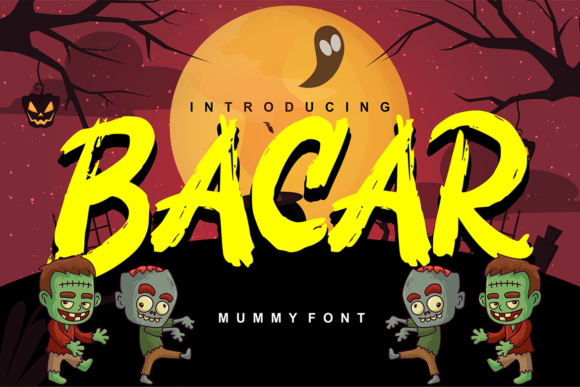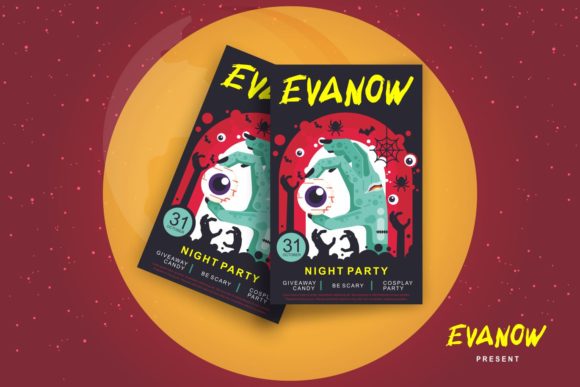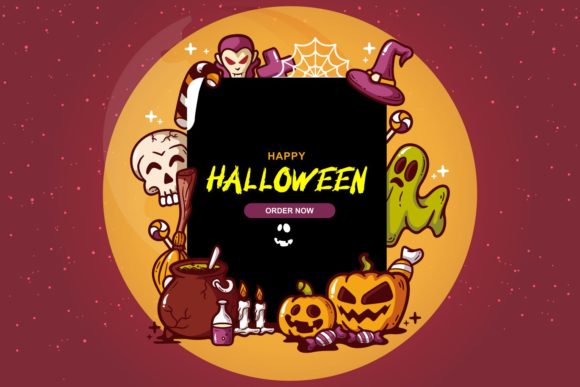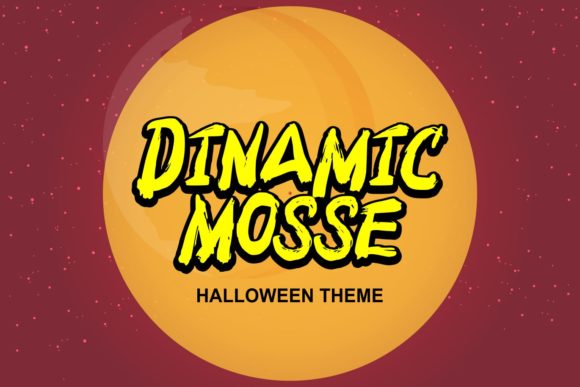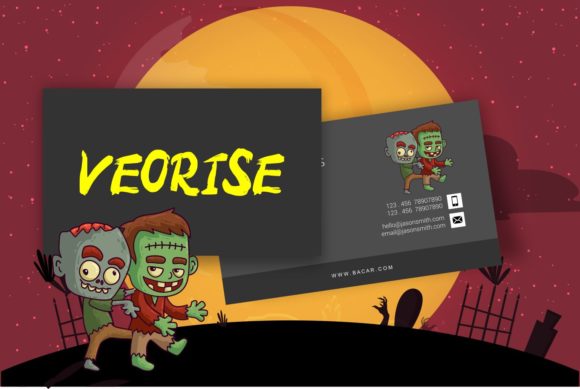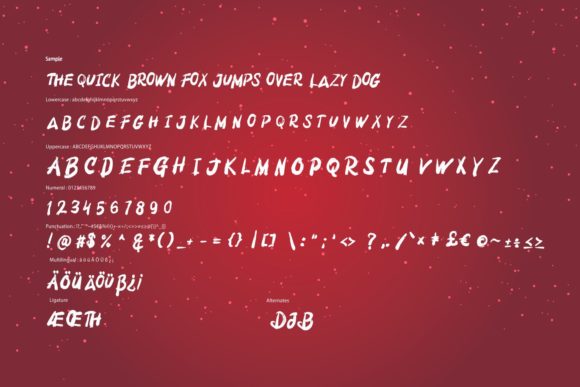
HomeScript FontsBacar Font Script Fonts Bacar Font FacebookXPinterestWhatsApp Bacar Font Poster 2 Bacar Font Poster 3 Bacar Font Poster 4 Bacar Font Poster 5 Bacar Font Poster 6 About Bacar Font Bacar is a spooky and bold script, perfect for all things Halloween! DOWNLOAD NOW People also explored Lovely Valentine Font Sinthya Font Faizer Masticated Font Amsterdam Lentteria Font Blumen Font Anychild Font Birthday Font Vanila Latte Font 352 0 TagsBacar Font Previous articleMarifessa FontNext articlePrima Donna Font LEAVE A REPLY Cancel reply Comment: Please enter your comment! Name:* Please enter your name here Email:* You have entered an incorrect email address! Please enter your email address here Website: Save my name, email, and website in this browser for the next time I comment. Personal Use Free Bebas Neue Font Personal Use Free Read more about this font Entin Personal Use Free Read more about this font Happy Garden Personal Use Free Read more about this font Einstaint Personal Use Free Read more about this font BLOG Using Fonts in Digital Marketing: Tips to Strengthen Your Brand Identity In the realm of digital marketing, every visual element plays a crucial role in shaping a brand's identity, and fonts are no exception. The... Transform Your Website: Elevate Your Typography with 7 Best Web Font Generators To increase your work productivity, choose the most readable fonts. How to Cut Any Font on Cricut: Convert a Font to SVG (Free)